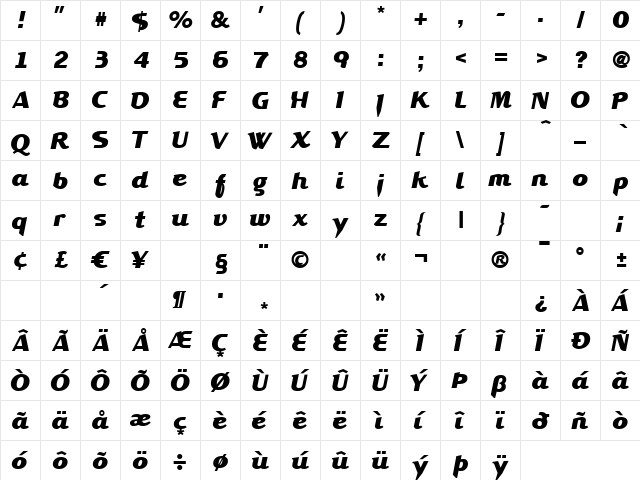
Xyperformulaic2.1 SB Regular
Design Context for Xyperformulaic2.1 SB Typeface
Xyperformulaic2.1 SB offers clean, dependable letterforms without strong stylistic allegiance, making it a practical choice for designers who need flexibility.